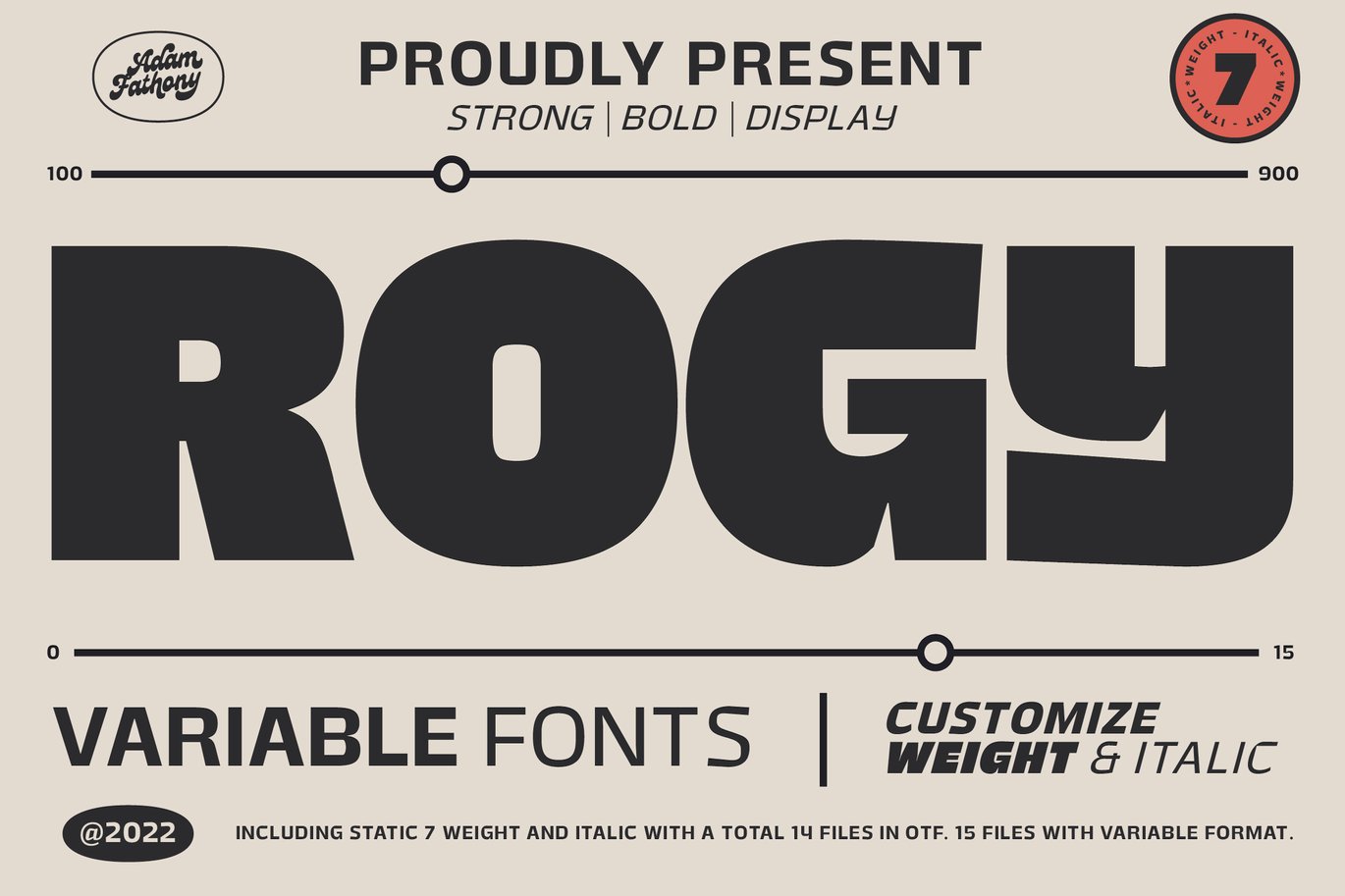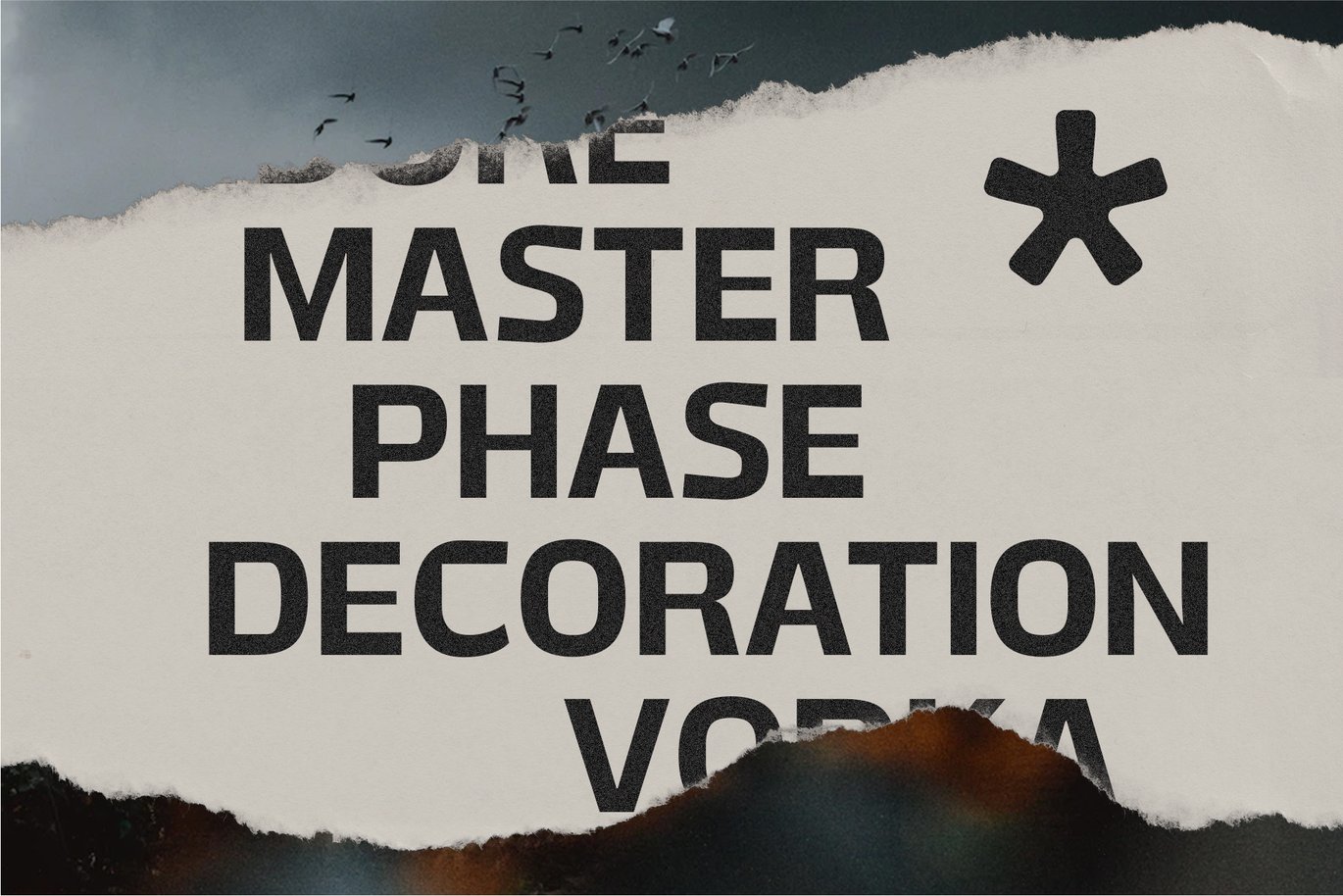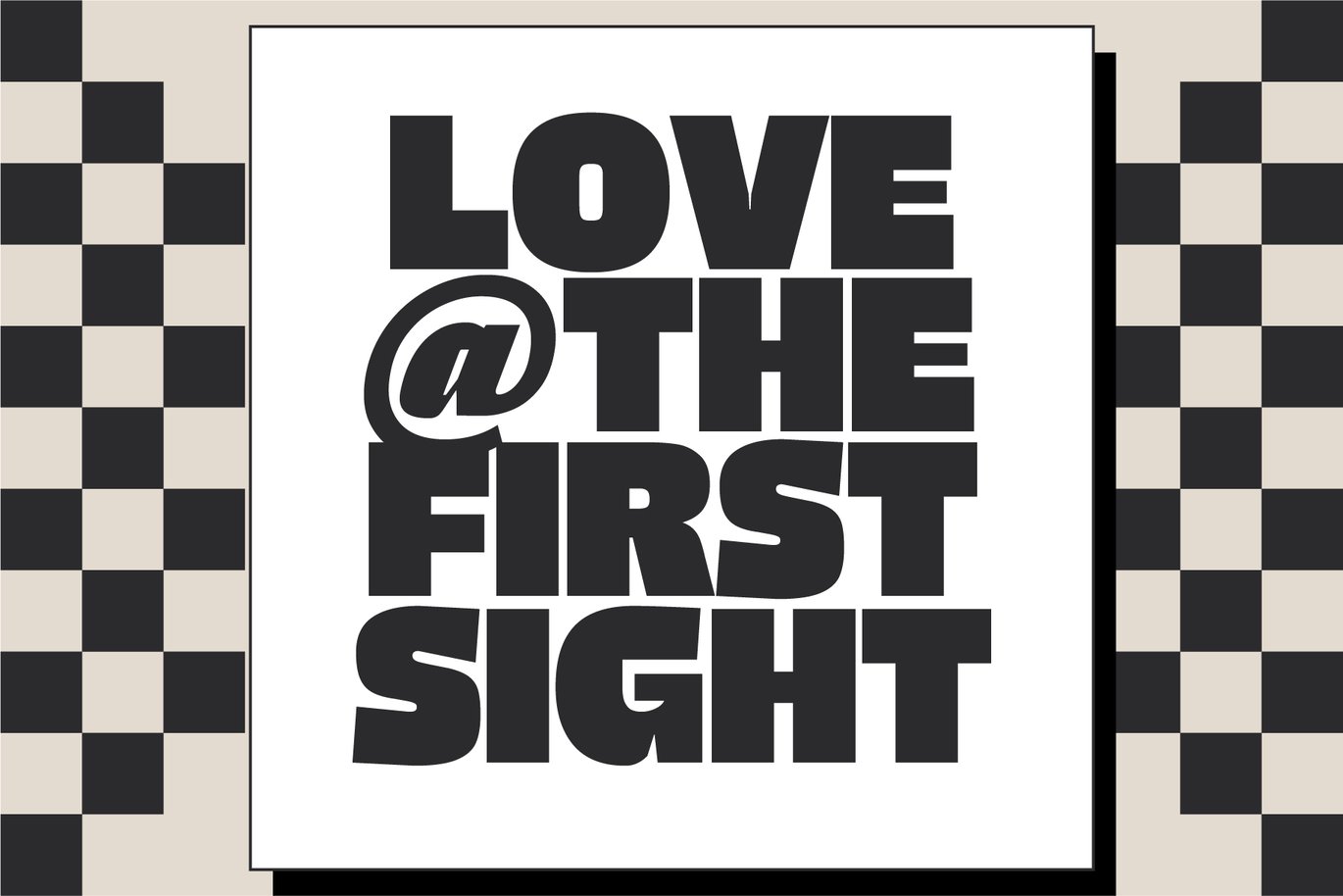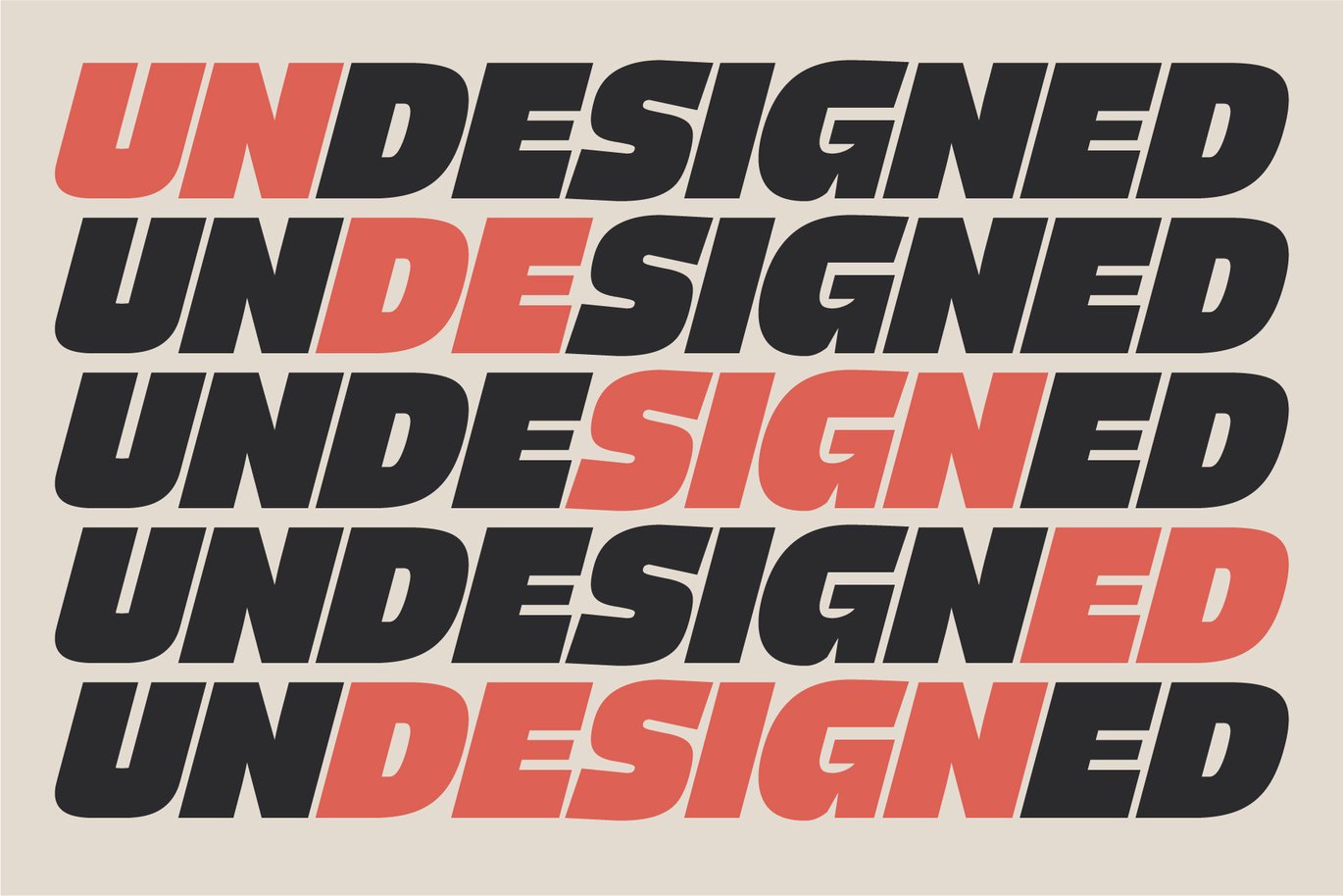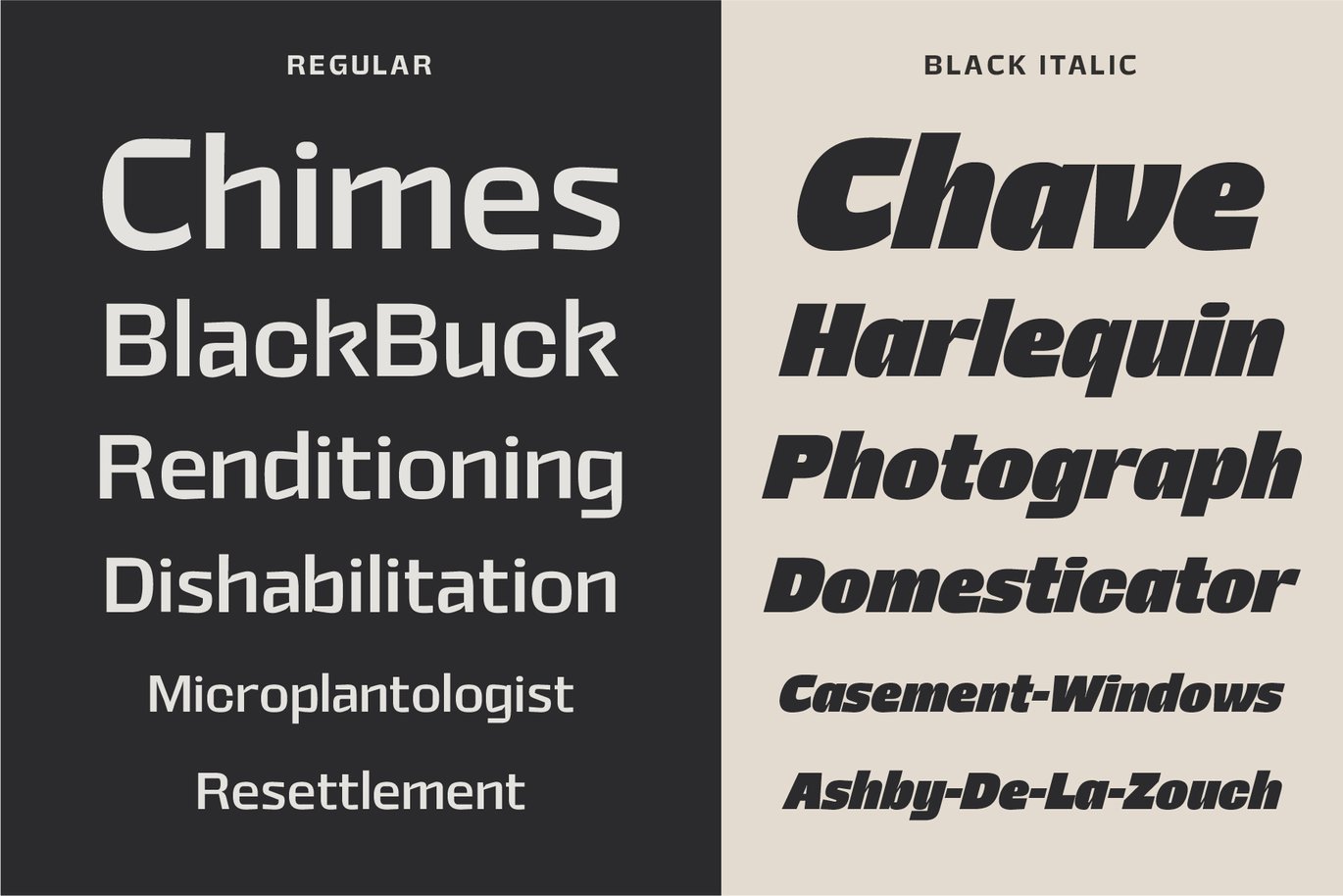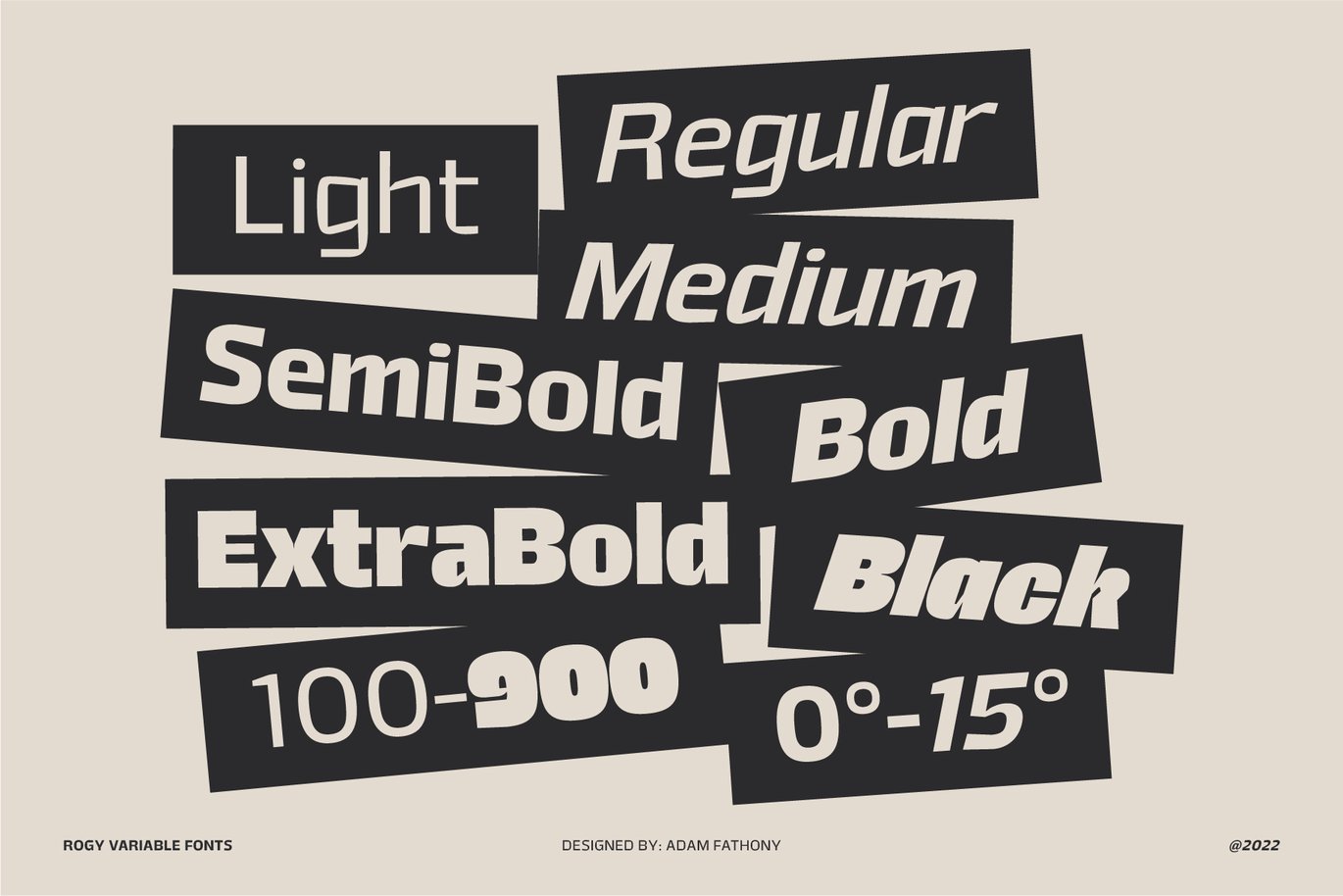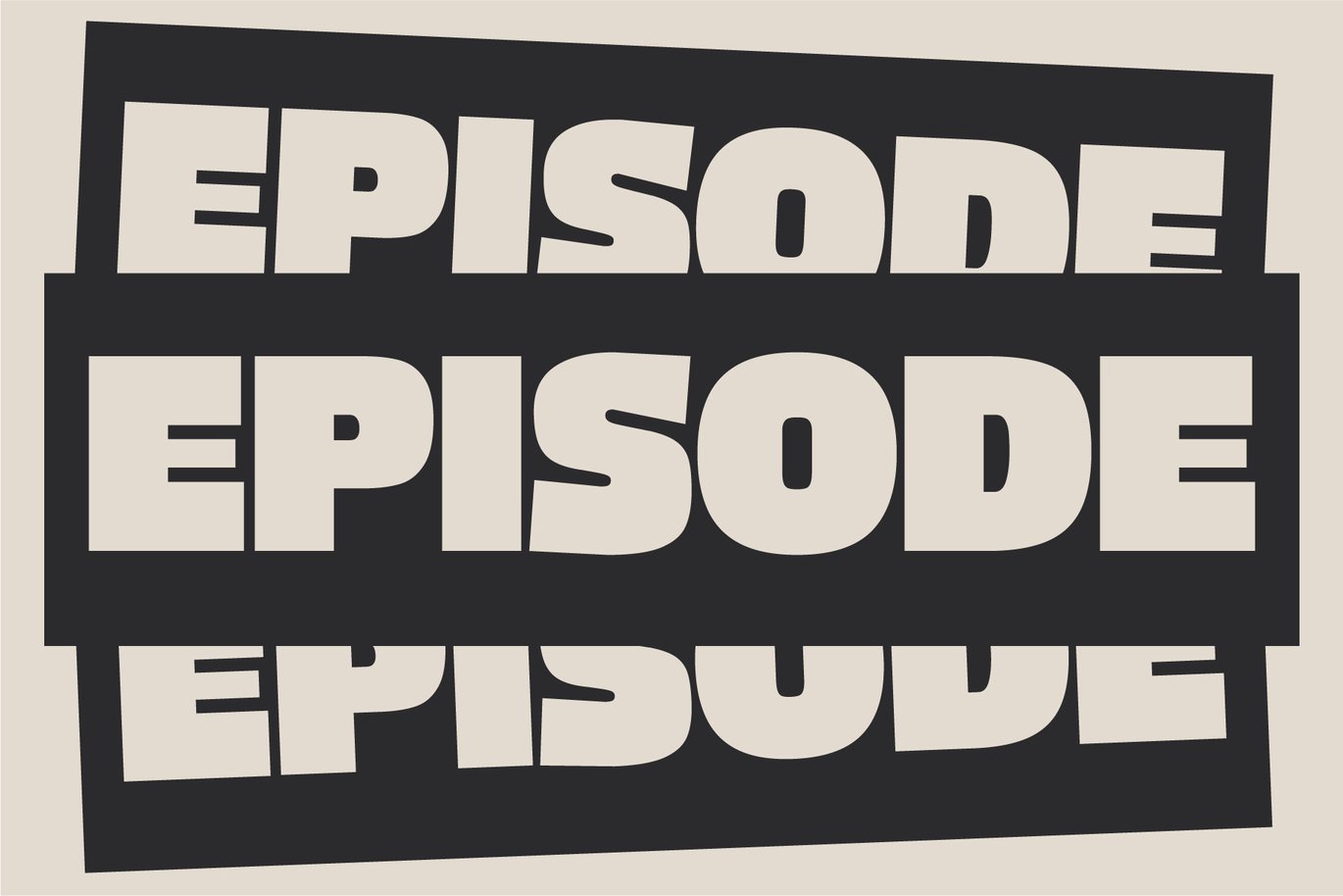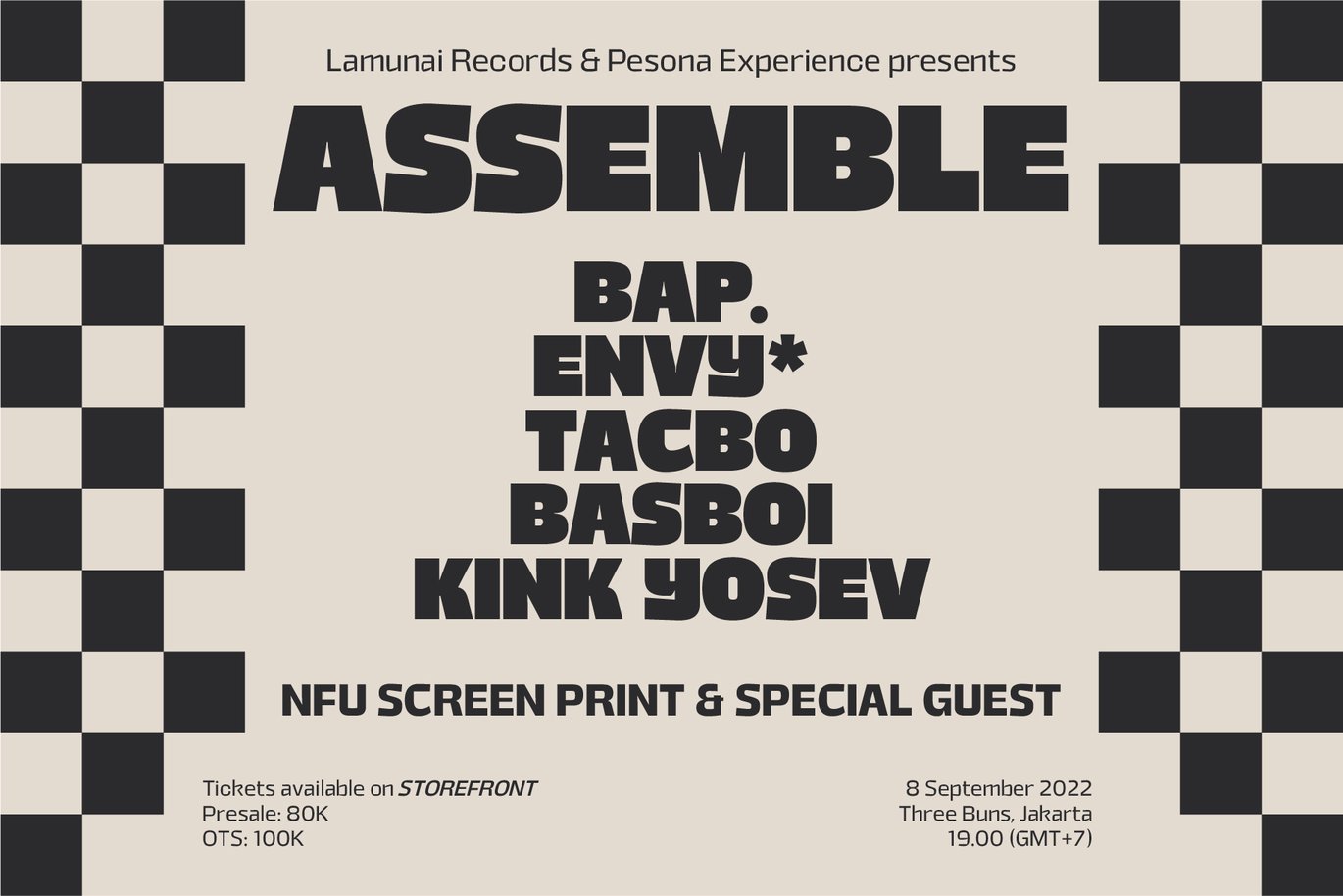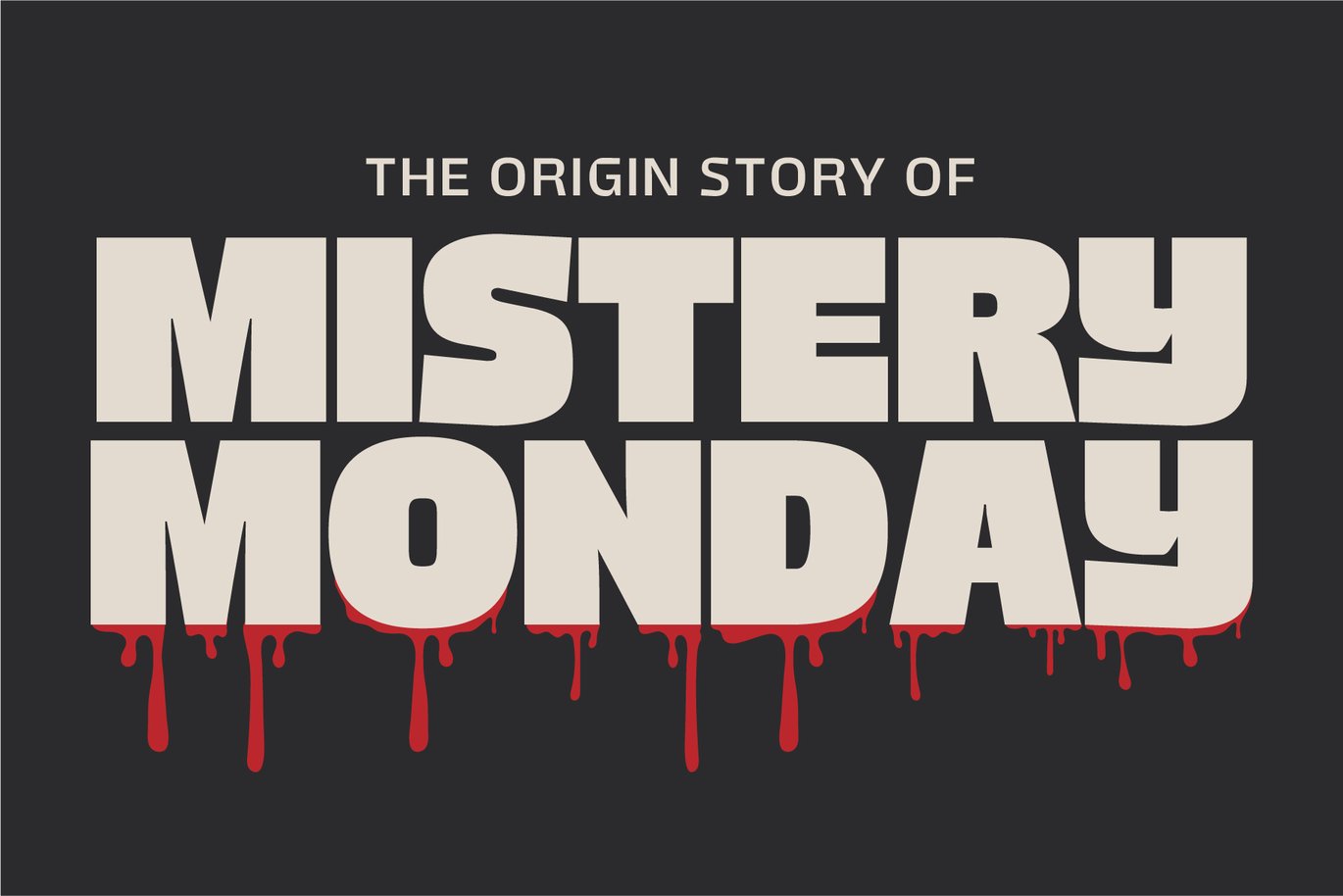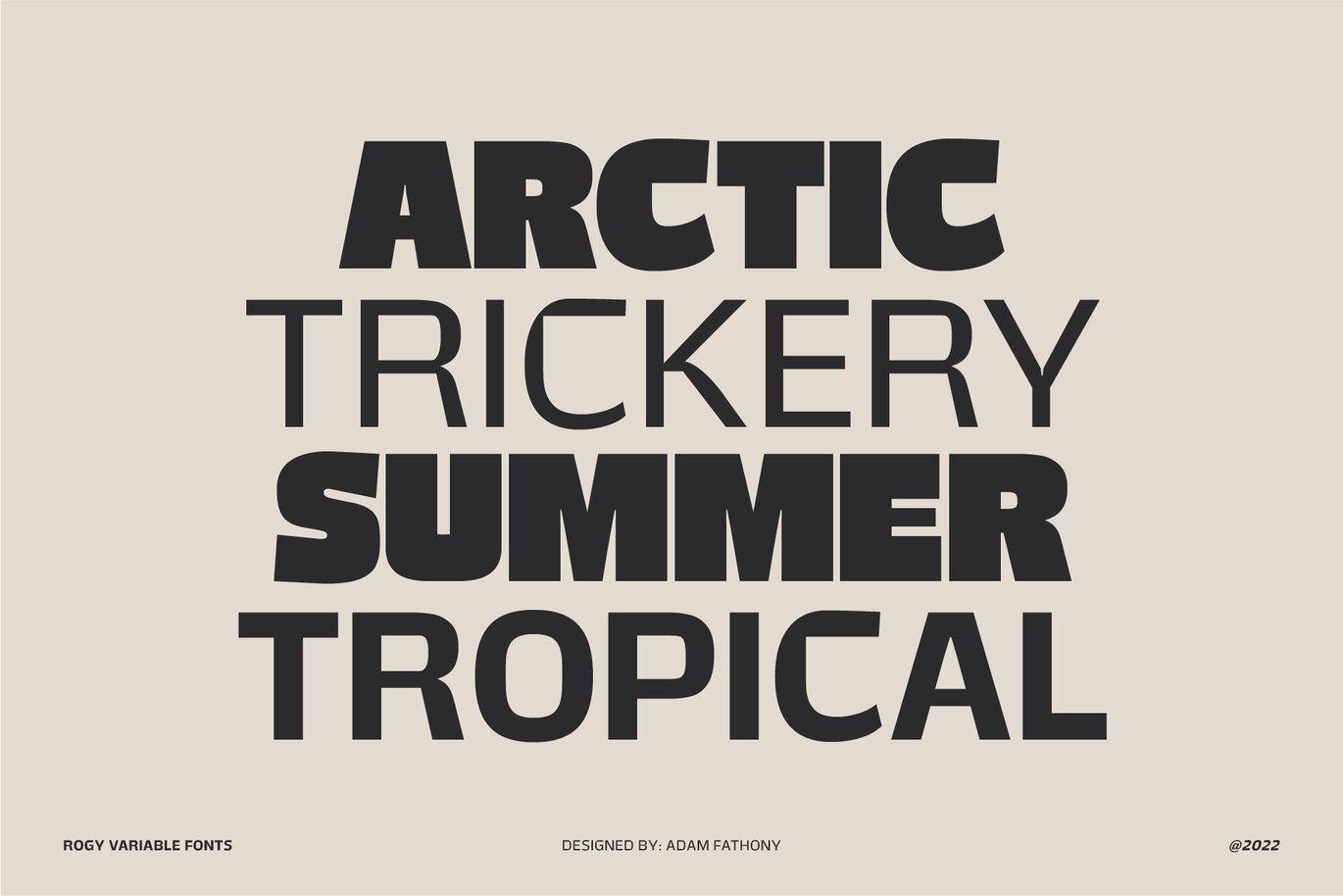
Rogy Variable Fonts
Rogy, A Display Typefaces with Variable Weight and Italic.
Rogy is a modern variable font. Basically this is a Sans with rigidity and squared look yet very legible with various width and italic that you can explore, combine, create and help you designing something. The Bolder the Stronger. it has define Rogy, it’s Bold, Strong and the italic version of this fonts are very good for Sports design.
In a Total of 14 Style Font on the OTF files or even more if you are using the Single Files Variable, you can slide the weight and width on the sweetest spot of Rogy.